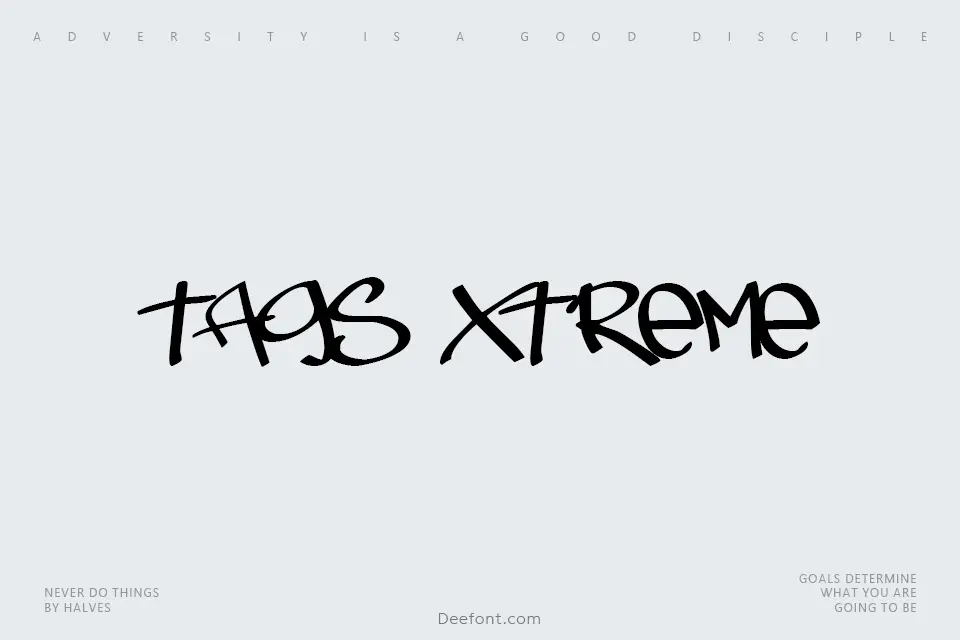
Tags Xtreme Font
Tags Xtreme is a dynamic script and graffiti typeface that captures the raw energy of street art and urban design. Created with bold, edgy characteristics, this font brings an expressive and contemporary aesthetic to any creative project. Perfect for posters, album covers, and eye-catching headlines, Tags Xtreme delivers authentic graffiti-style typography that stands out and makes a powerful visual statement.